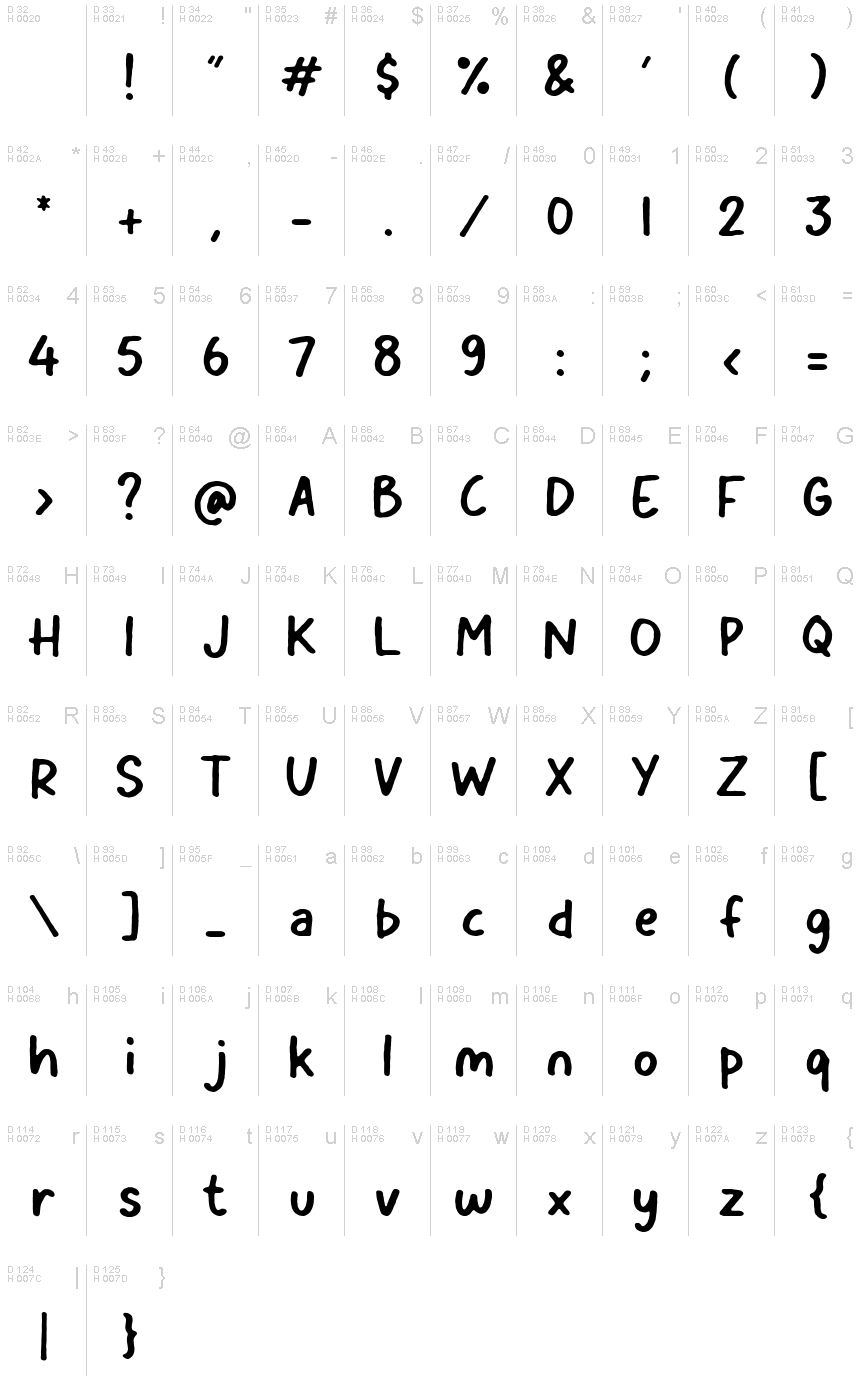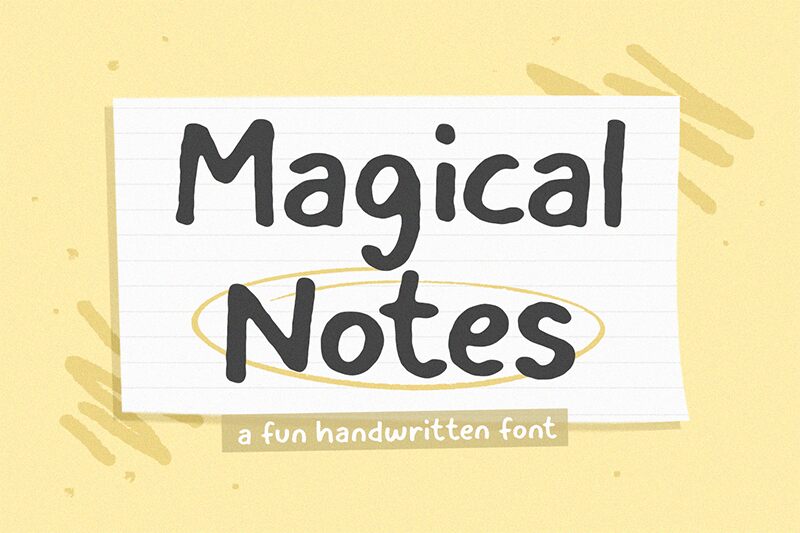
Magicalnotes
Magicalnotes font is a delightful handwritten style created by Timur Type. This font stands out with its whimsical charm, showcasing a playful fluidity that evokes a sense of creativity and spontaneity. Each letter dances across the page with charming irregularities, inviting users into a world of imagination.
With its distinctively bold presence, Magicalnotes is perfect for applications that crave an approachable yet artistic touch. Whether adorning greeting cards, playful branding, or engaging social media posts, this font adds an enchanting flair to any project. Its unique character makes it particularly suited for events like weddings or festivals, where capturing joy and celebration is essential. Overall, Magicalnotes seamlessly blends artistry with functionality, making it an exceptional choice for diverse design contexts.